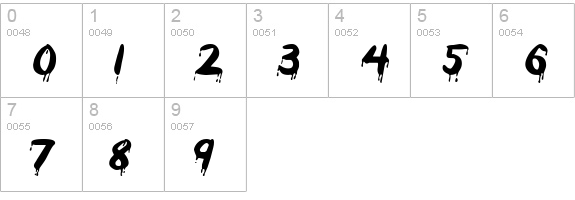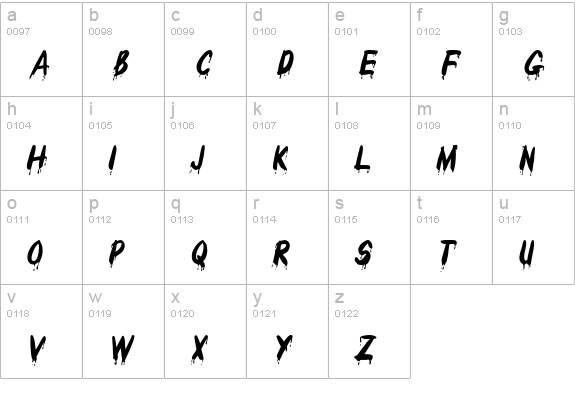
Drips Italic Font Details
Drips Italic is a distinctive, italic variant in the Drips typeface family \xE2\x80\x94 well suited to design and typography projects.
Drips Italic font is a unique and stylish typeface that adds a touch of creativity to any design project. The italicized letterforms feature a playful dripping effect, giving your text a fun and dynamic appearance. Whether you're working on a branding project, poster design, or social media graphics, Drips Italic font is sure to make a statement. Best of all, Drips Italic font is available for free download at FontsMarket.com. This means you can easily add this eye-catching font to your collection without any cost. Don't miss out on the opportunity to enhance your designs with the free-spirited charm of Drips Italic font. Download it today and let your creativity flow!